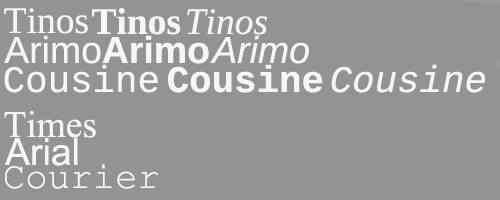
Google’s forthcoming Chrome OS ships with a new default font set that provides near-identical replacements for commonly used Microsoft fonts online.
Replacing the previously used ‘Liberation’ font set are ‘Tinos’ – a Serif font akin to Times new Roman; ‘Arimo’ – a sans-serif font similar to Arial and, for fixed-width usage, Chrome OS uses ‘Cousine’ in place of ‘Courier New’.
The fonts are quite beautiful in use although so far I haven’t been able to source their origin. One would assume that, like the Droid font family in use on Android, these were custom built specifically for use with Chrome/ium OS.